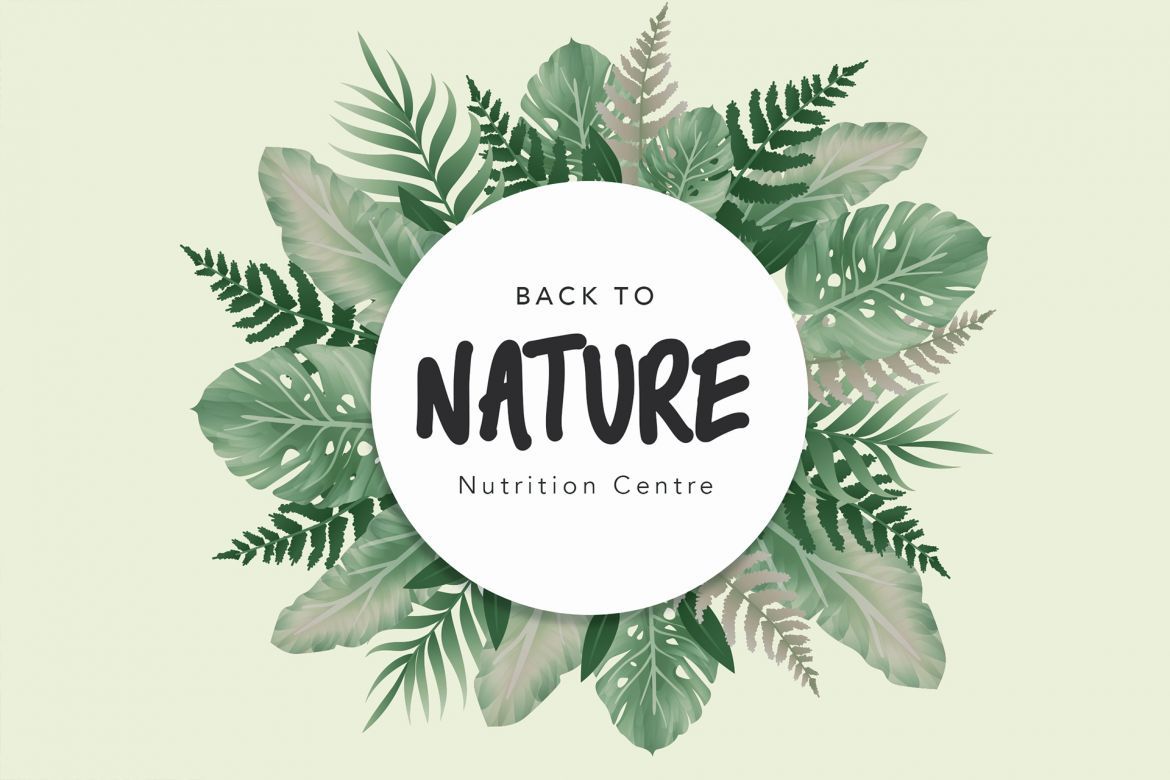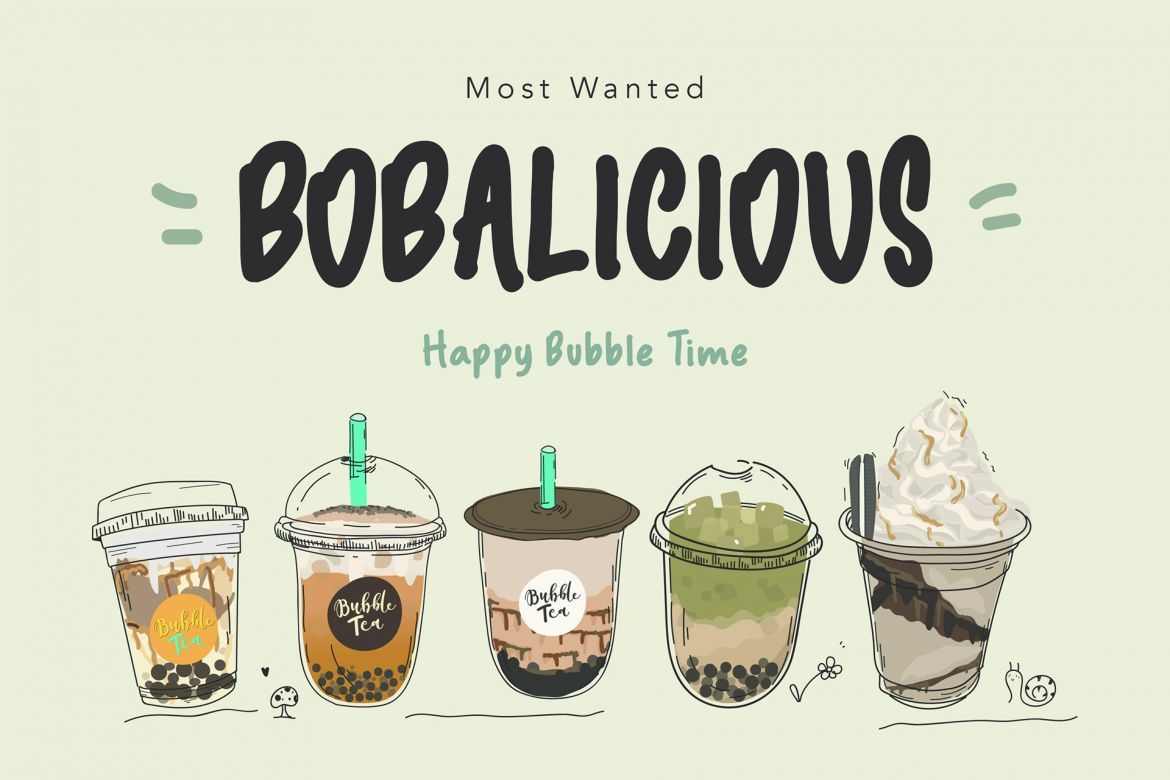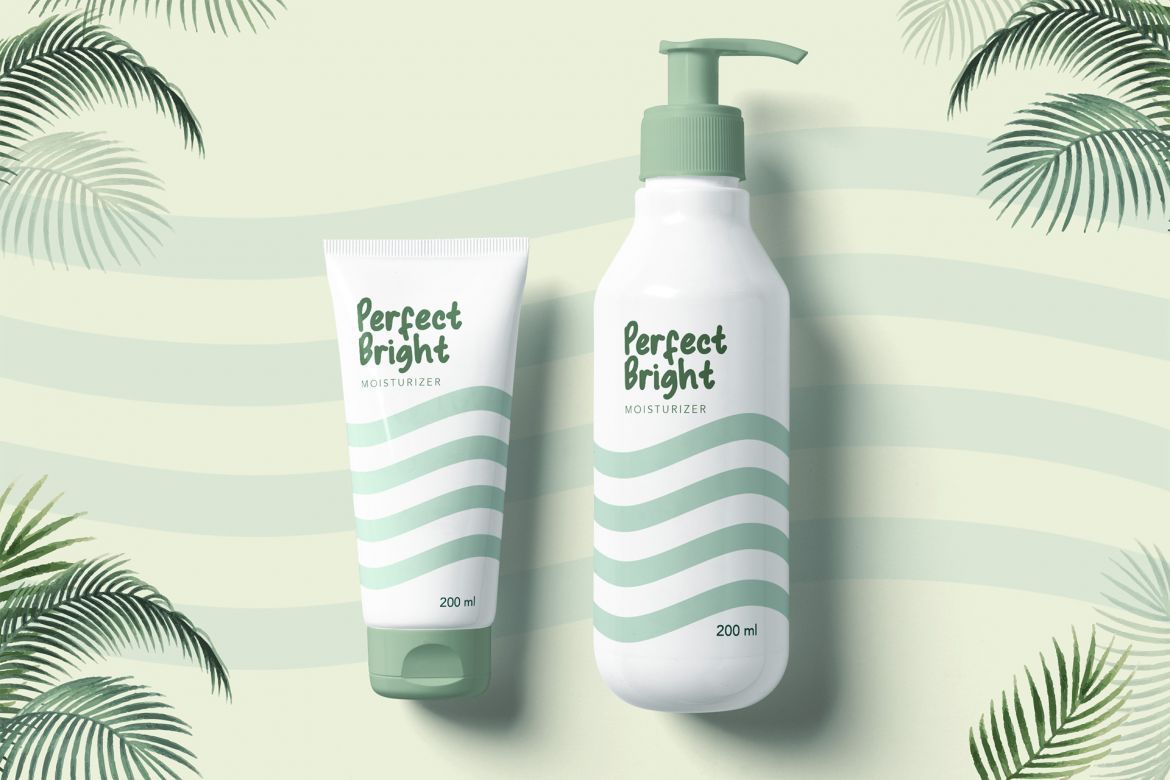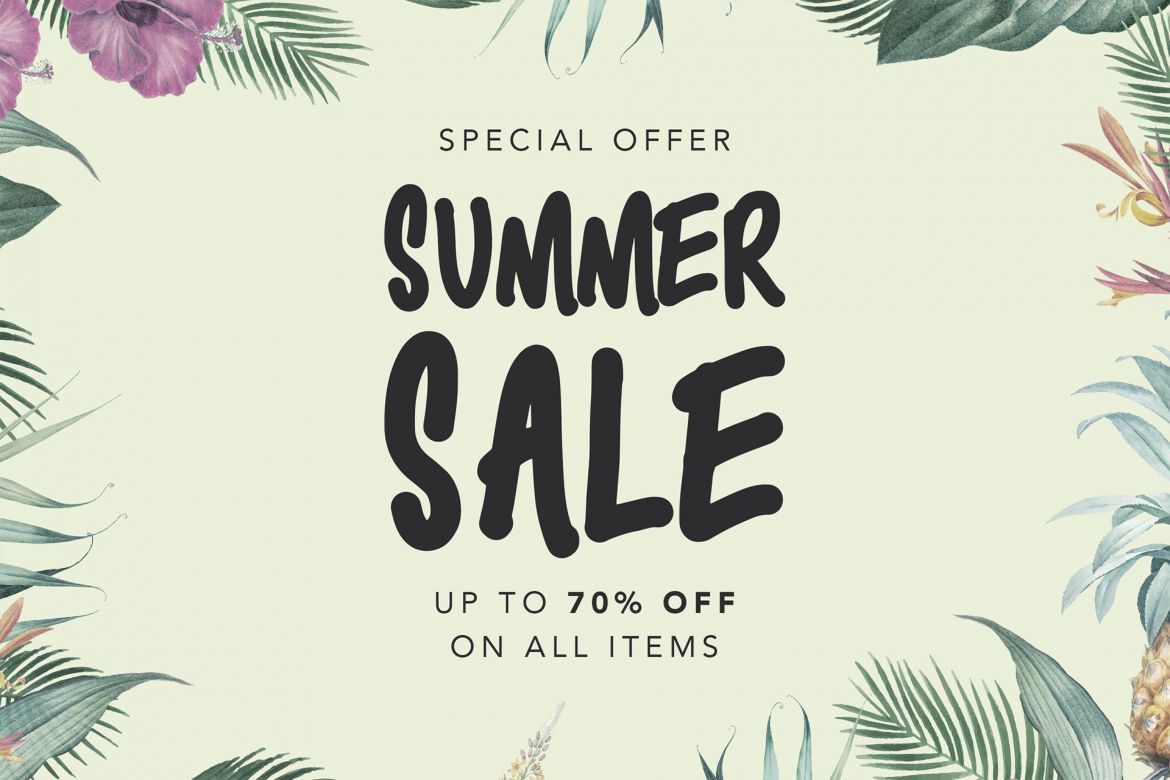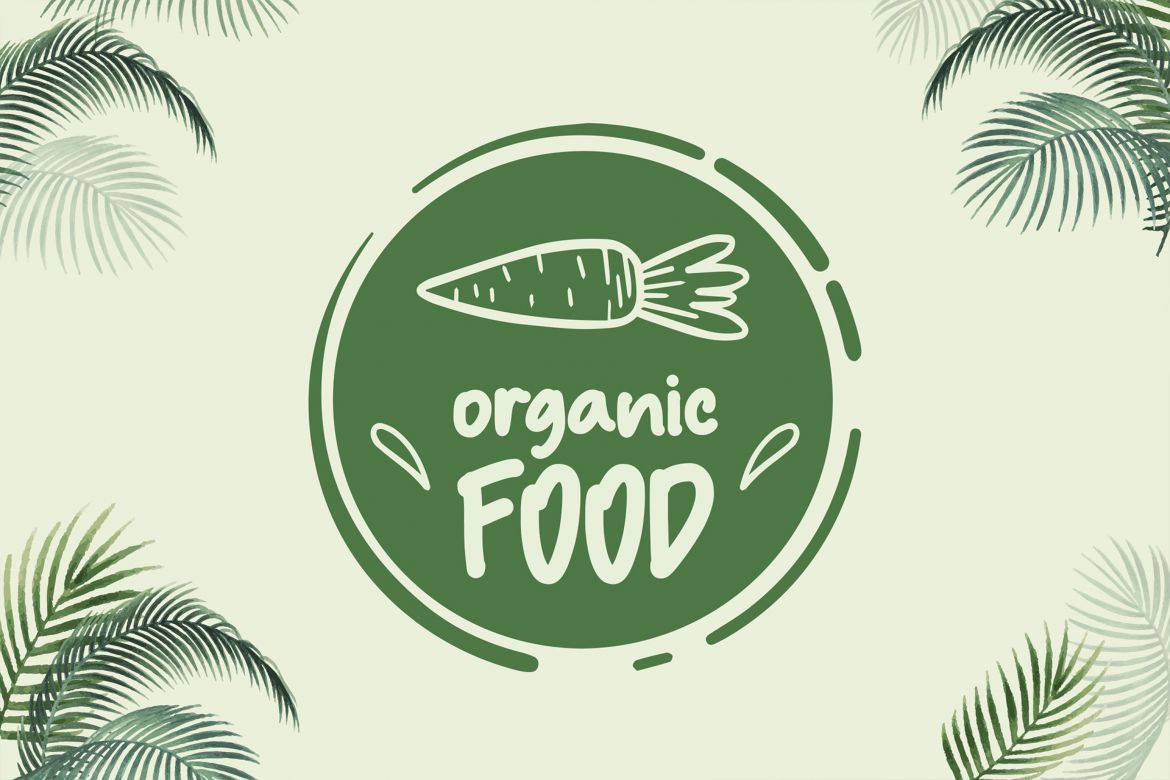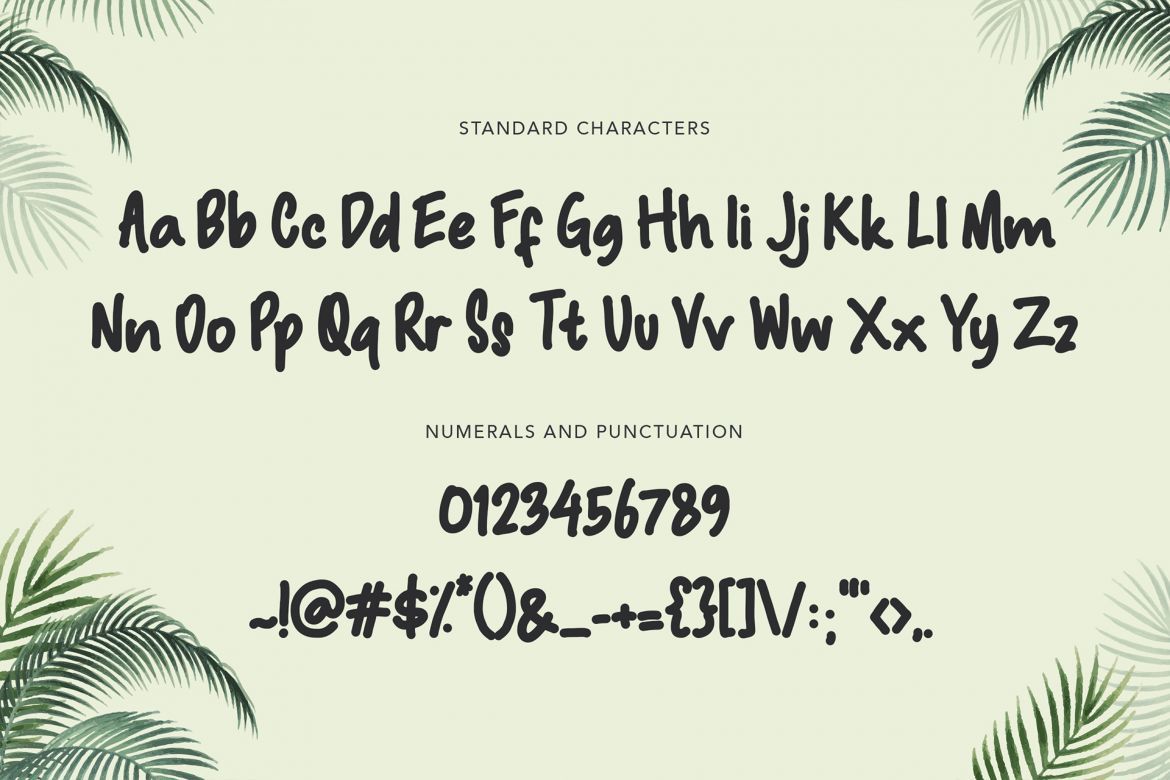
Macadamia Handwritten Font
Macadamia is a soft, bold and playful font type, it's a perfect fit for the modern botanical and nature theme, product packaging, tote bag, coffee, milk - or a stylish text overlay to any background image. It's also could be good for both fun and semi-formal text.
Macadamia Features:
• Font type with fun, playful and bold character.
• Uppercase & Lowercase letters
• Numbering and Punctuation